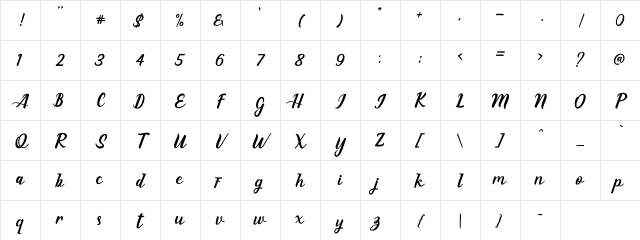
Eaglese Pro is a composed and adaptable typeface that performs quietly and consistently across a wide range of design contexts.
Pro Tip: Use Eaglese Pro in both headline and body roles to test its range before committing to a single application.